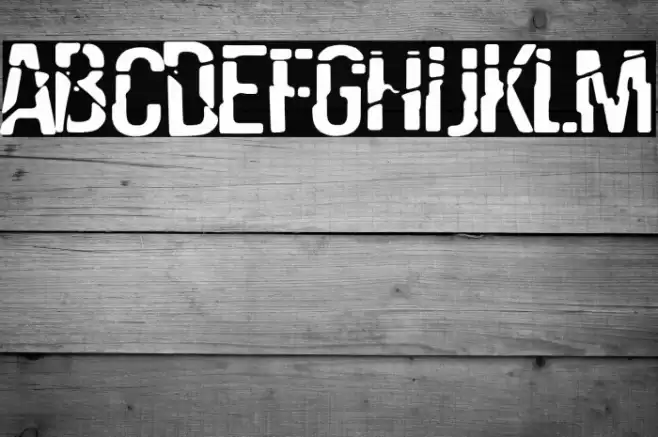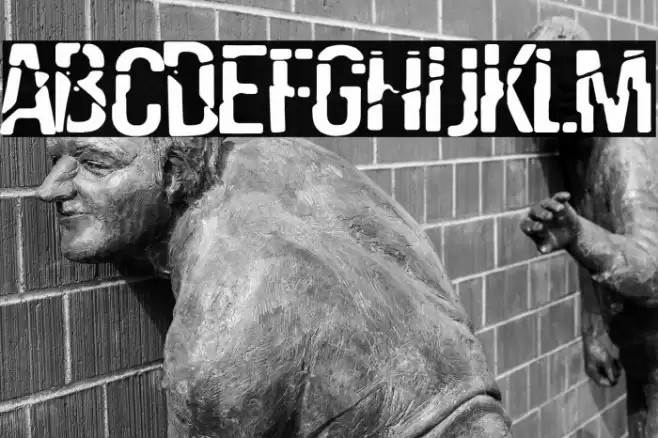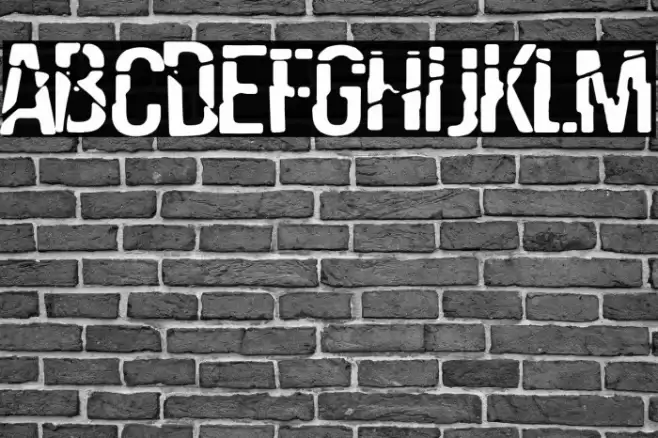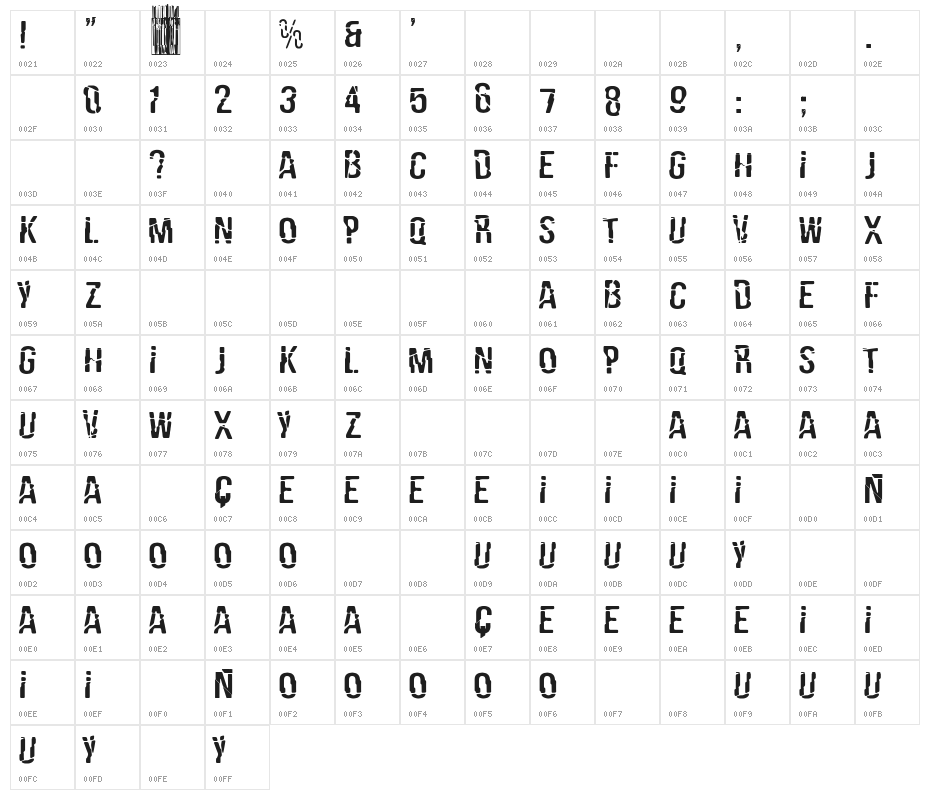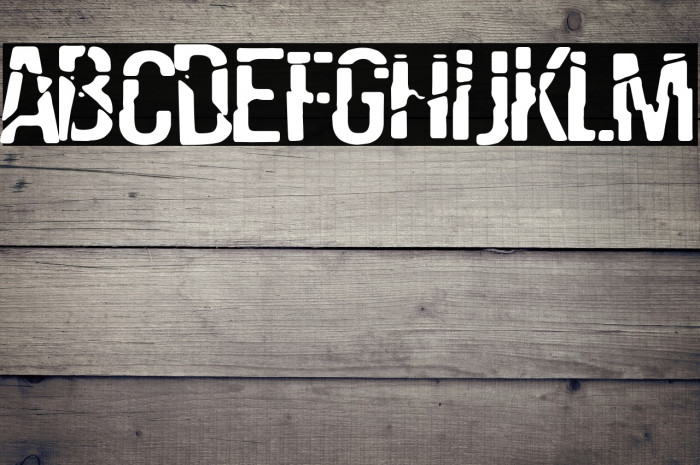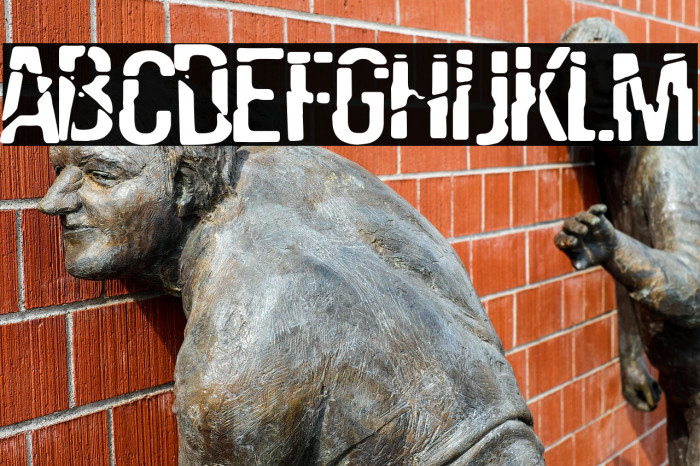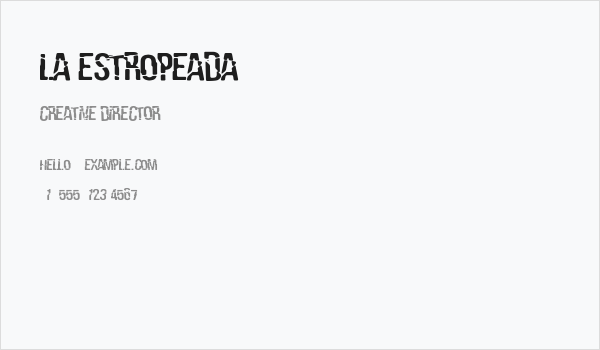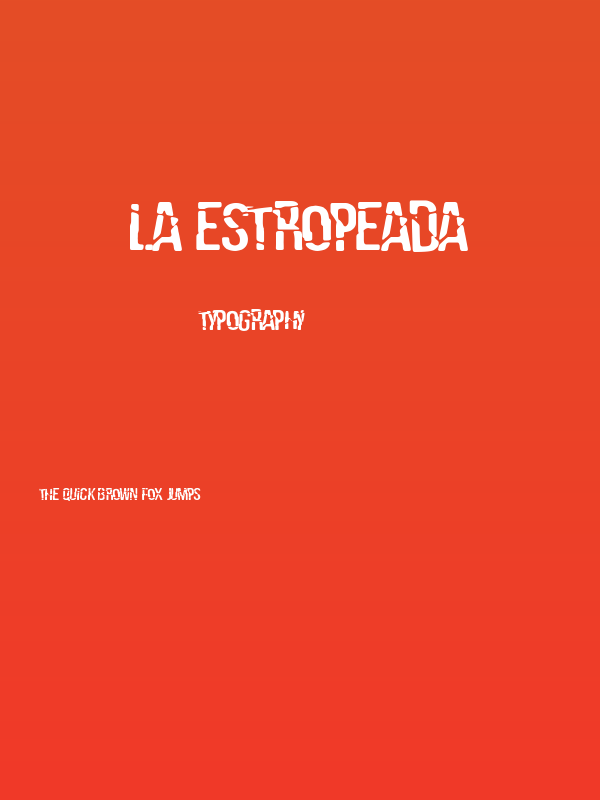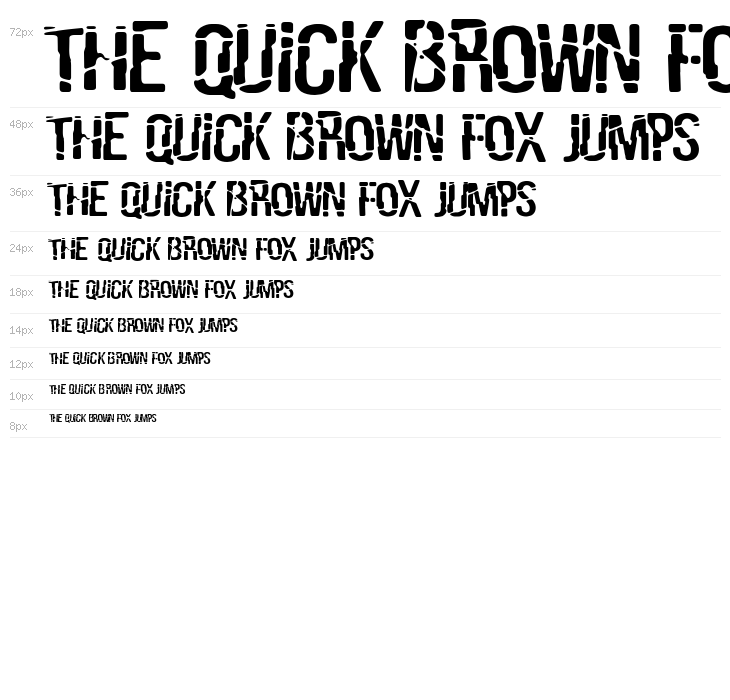
La Estropeada Font
La Estropeada Description
This font features a distressed and fragmented style, giving it a unique and edgy appearance. The characters appear as if they have been partially eroded or broken, creating a visually striking effect. The uppercase and lowercase letters maintain a consistent design, with jagged edges and missing segments that add to the font's rugged charm. Numbers and special characters follow the same aesthetic, ensuring a cohesive look across all text elements. This font is ideal for projects that require a bold and unconventional look, such as posters, album covers, or branding for edgy products.
A distressed, fragmented font with a bold and edgy appearance from Uncategorized fonts.
- Font: La Estropeada
- Proposed Projects: Ideal for posters, album covers, edgy branding, and creative design projects.